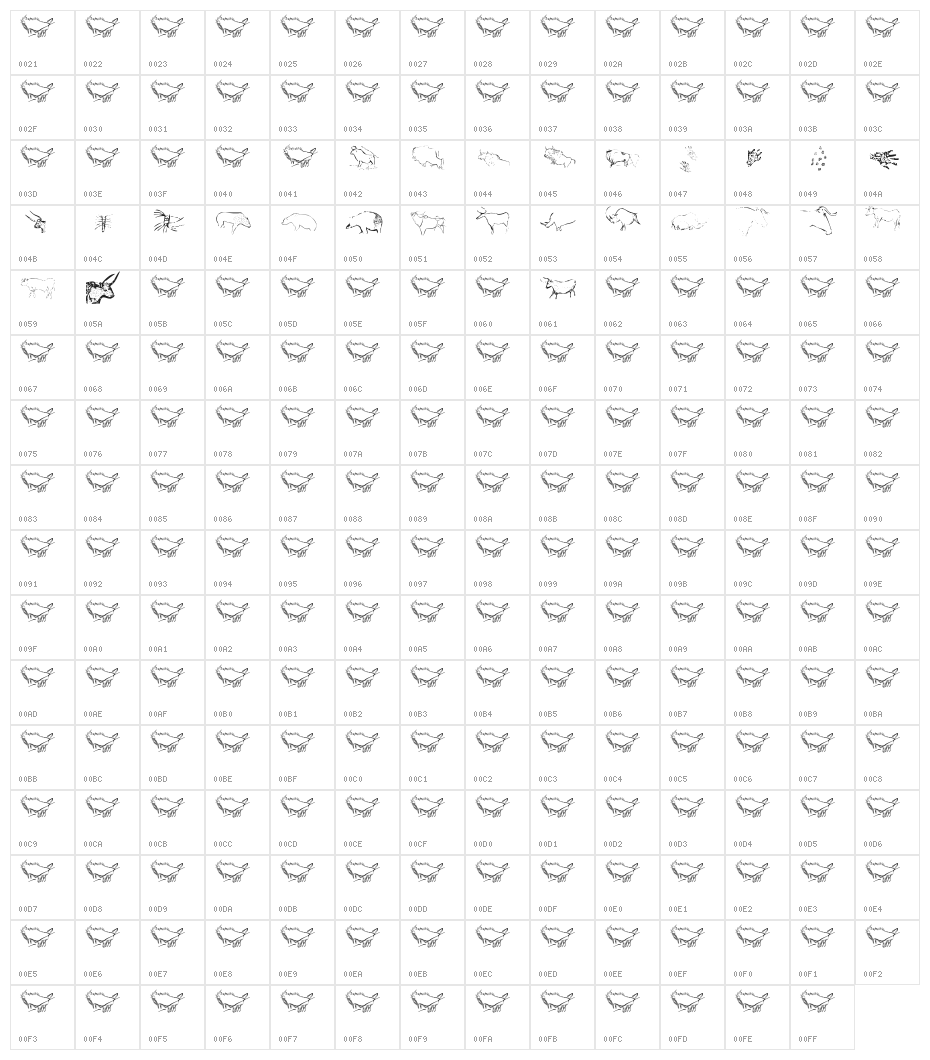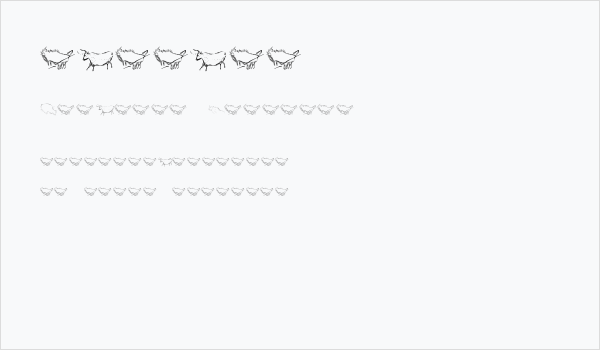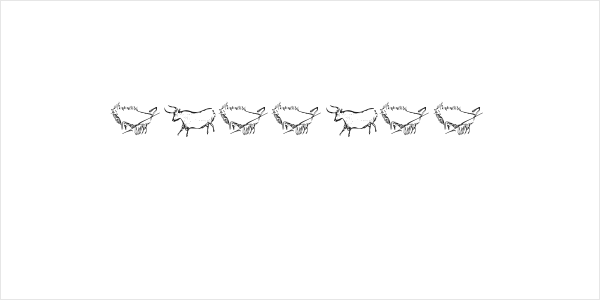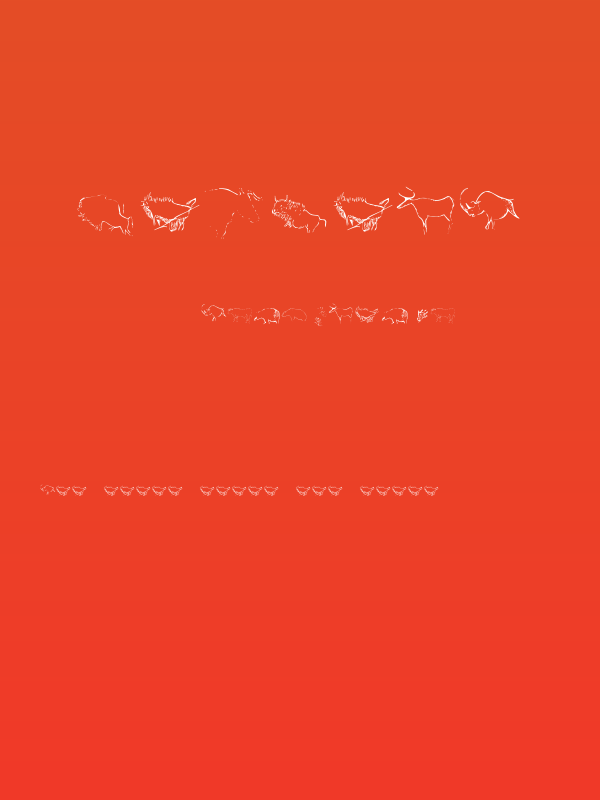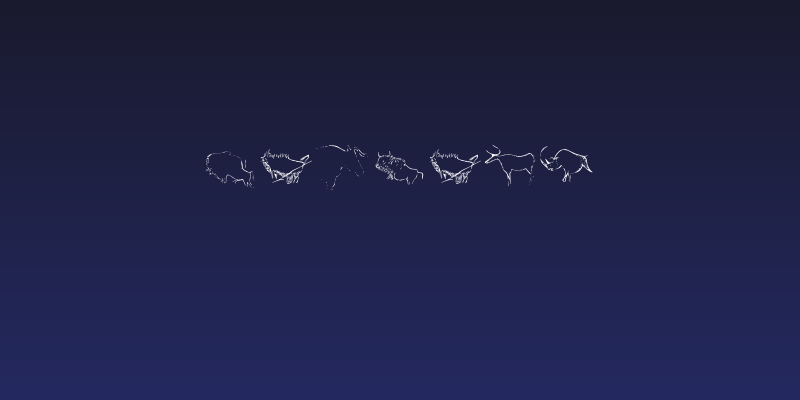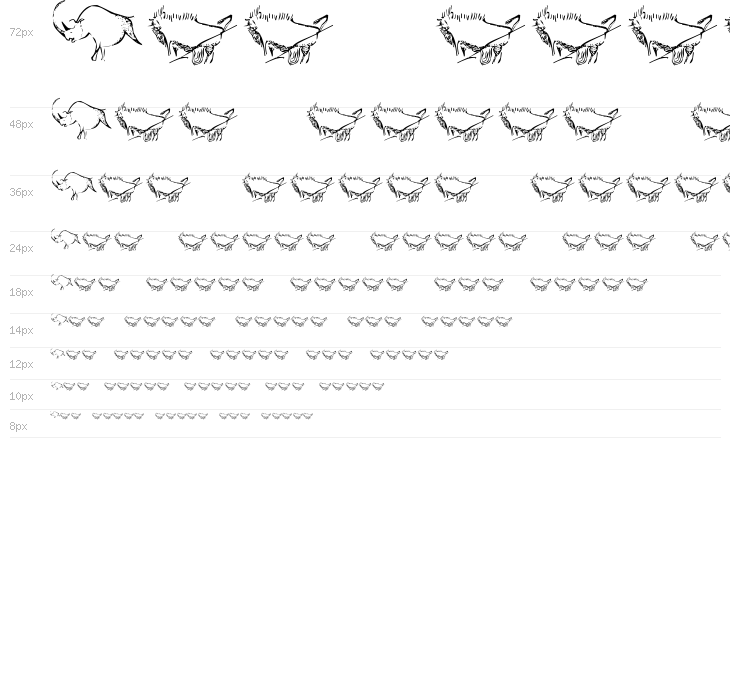
caveart Font
caveart Description
A decorative display font composed of hand-drawn, sketch-like illustrations inspired by prehistoric cave art, featuring animals, human figures, and primitive symbols. Each character is represented by a unique pictorial glyph, evoking the style of ancient petroglyphs and cave paintings.
Overall StyleDecorative, Primitive, Artistic
Use CaseLogos, Posters, Themed Headlines, Educational Graphics
Proposed ProjectsEducational materials, museum exhibits, history-themed posters, children's books, creative branding, and event invitations.